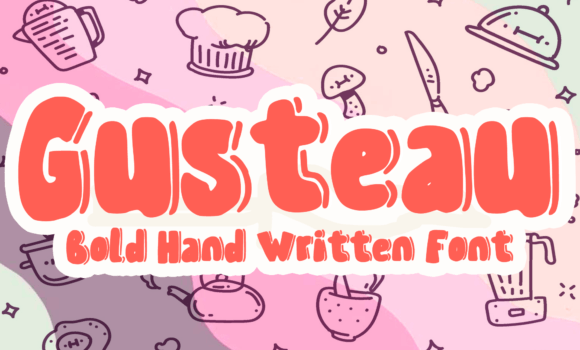
gusteau
Gusteau Font – Free Download Introduction to Gusteau Font Gusteau is a fun bold display font. 📸 Preview Gallery 3 images 📌 Product Name Gusteau Font 👤 Author MVMET 📂 Category Explore ⬇️ Download Gusteau Font FREE Free Download •